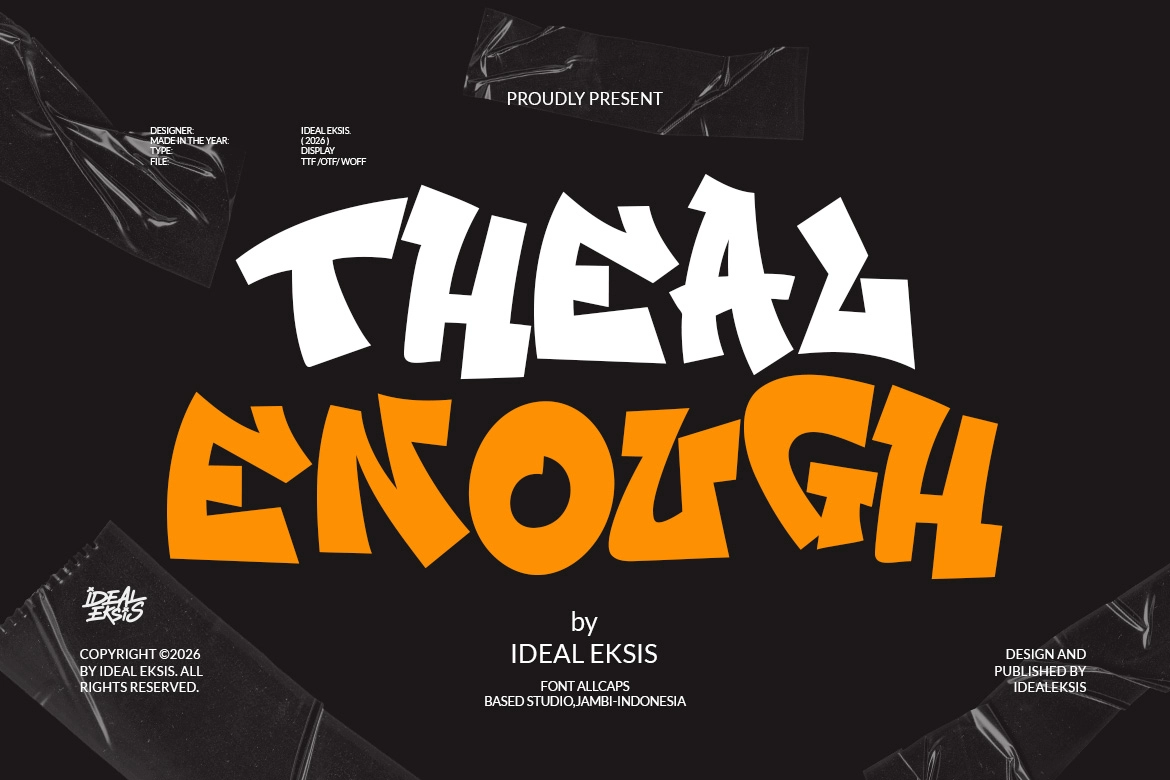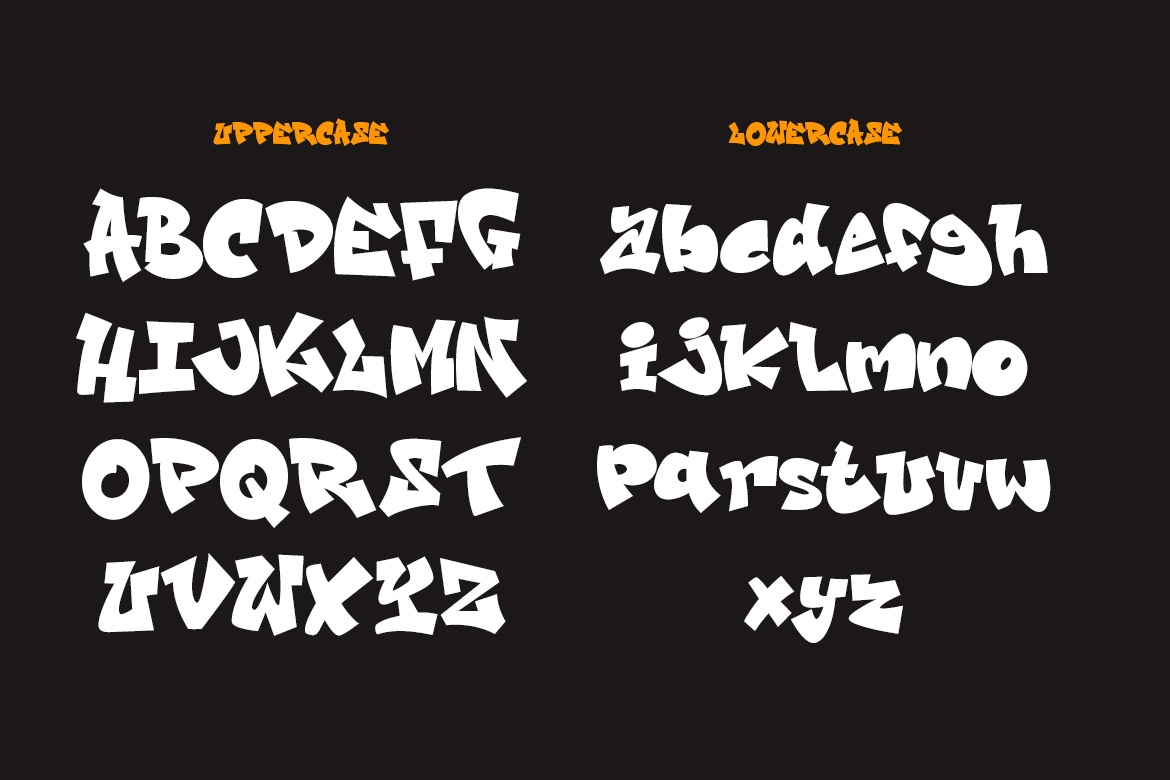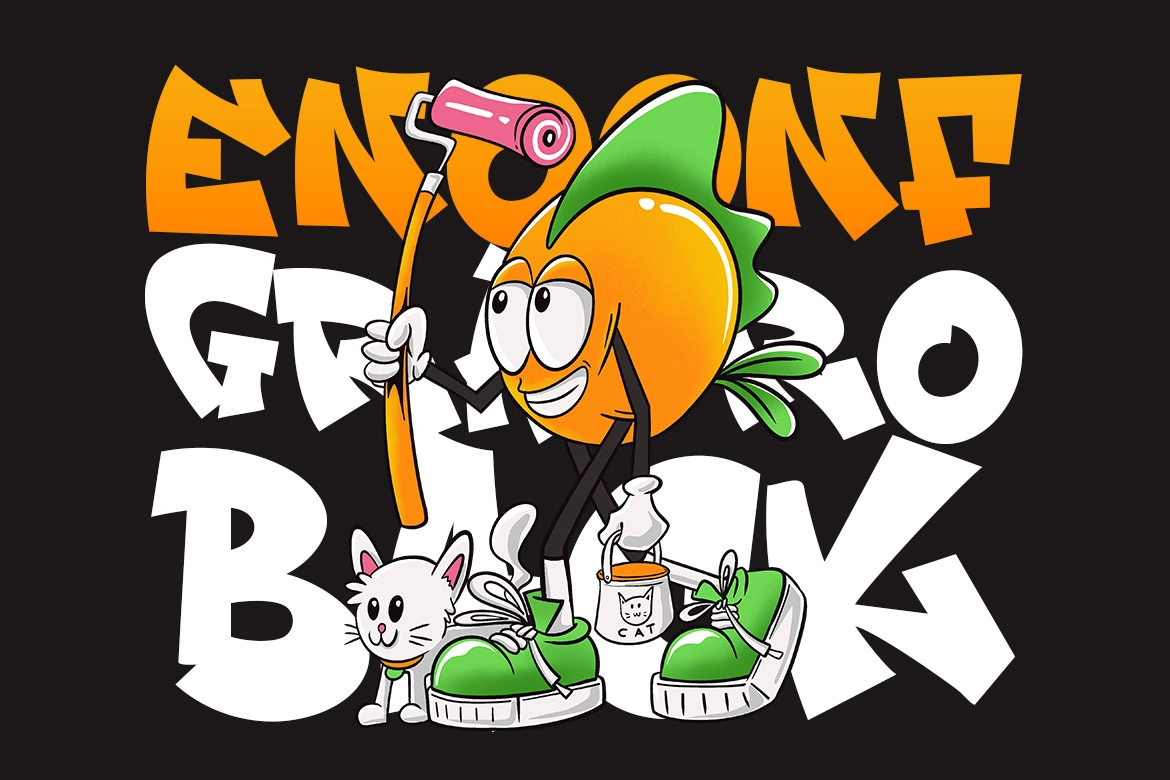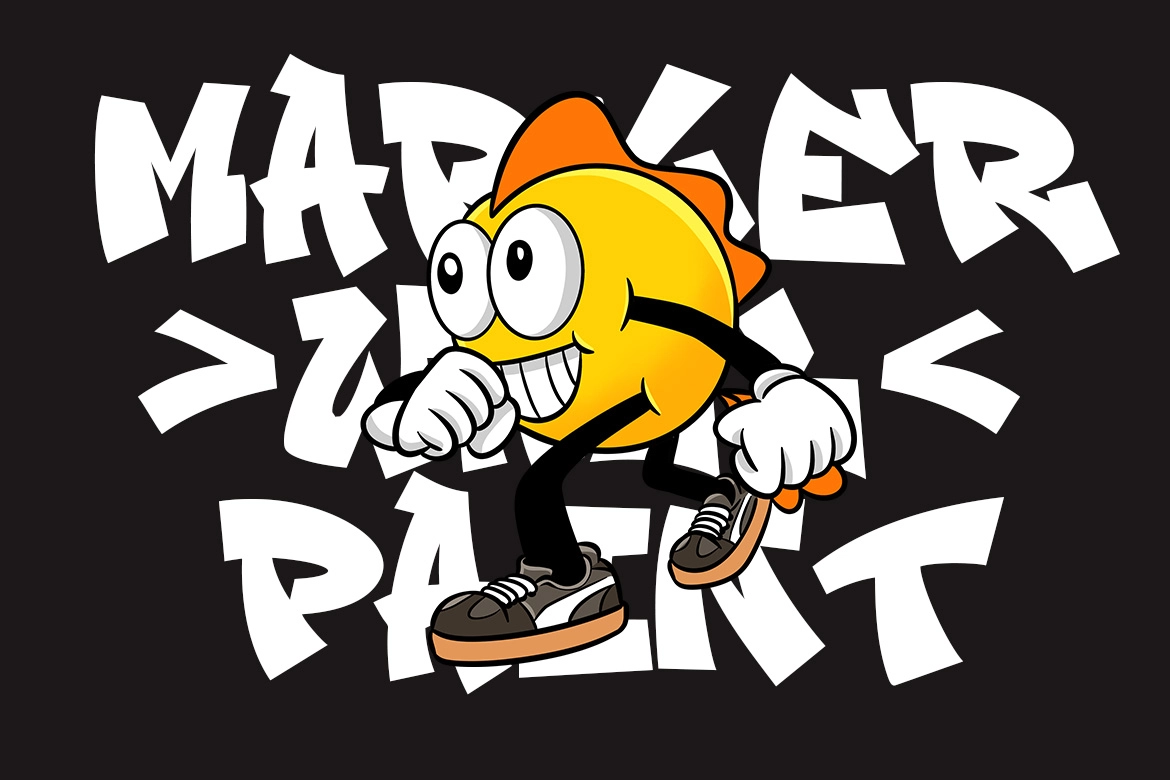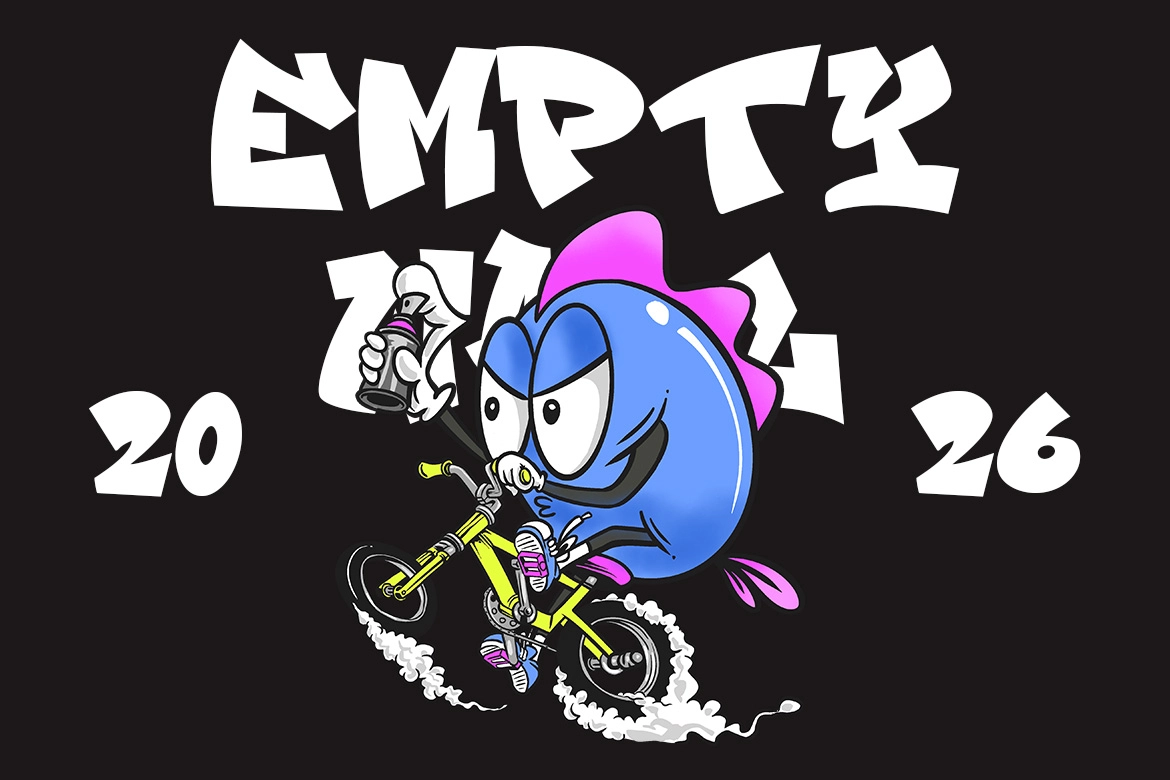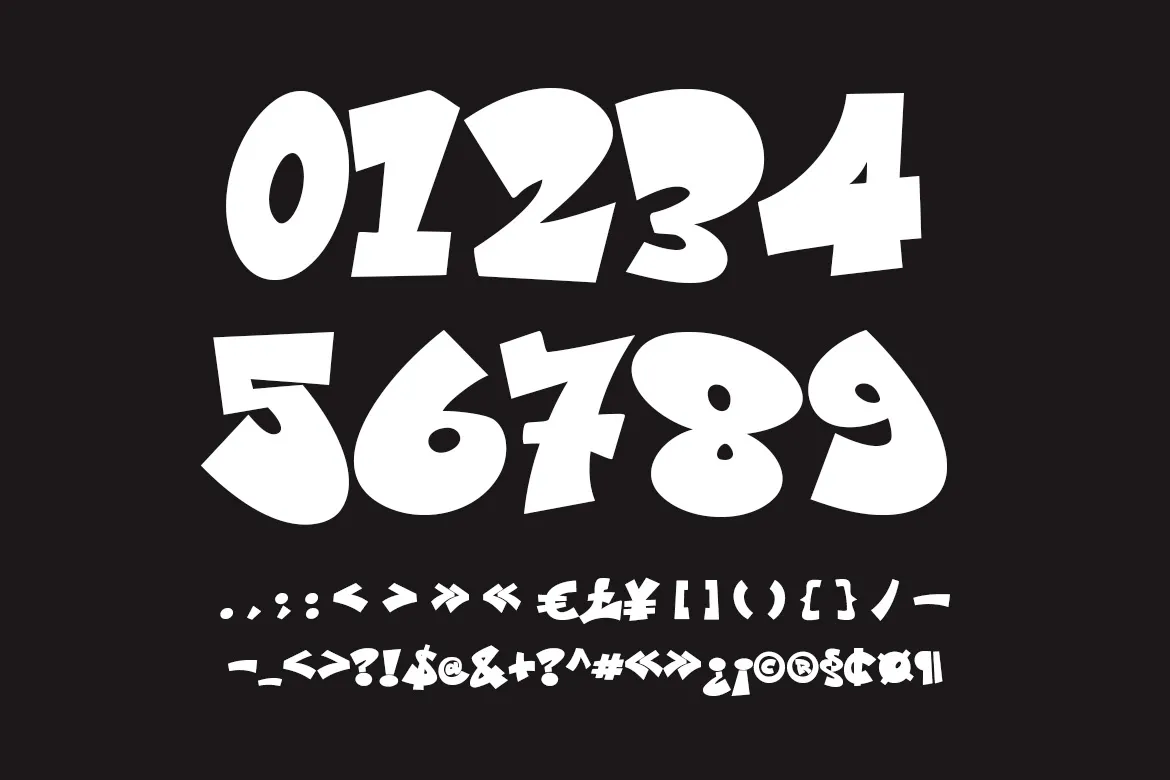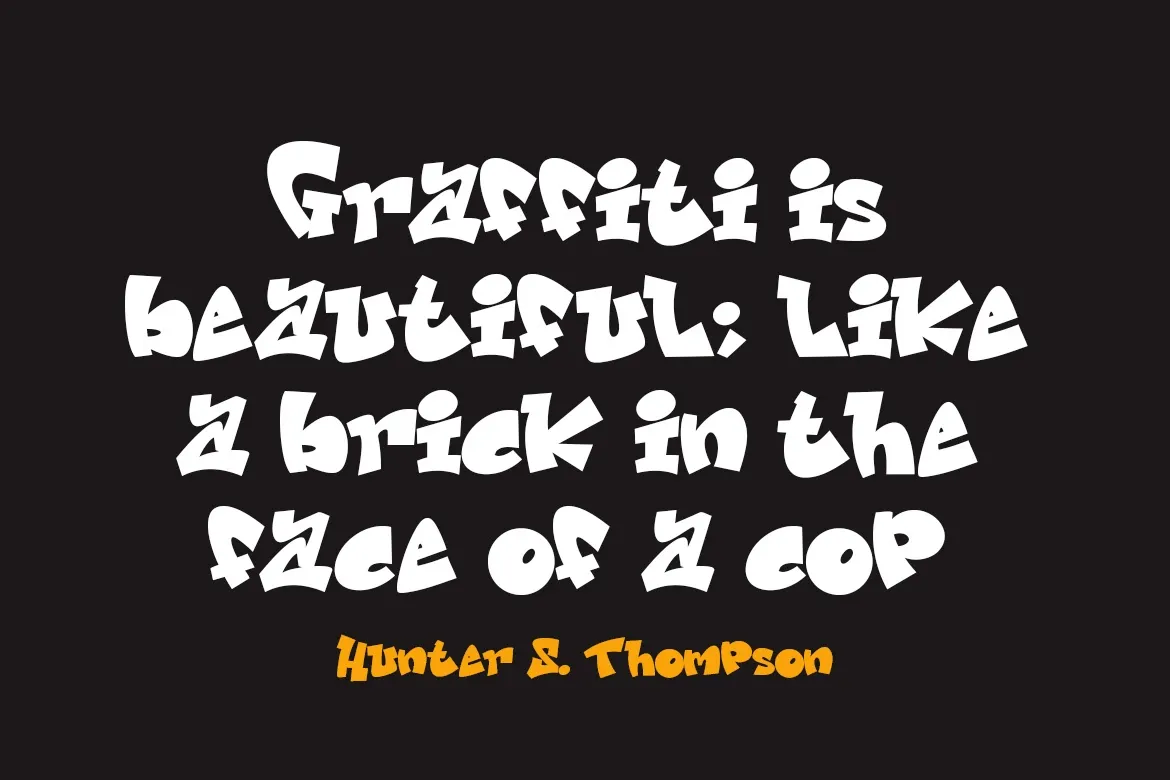
Theal Enough - Bold Graffiti Font
Theal Enough - Bold Graffiti Font delivers a punchy, street-inspired aesthetic with heavy, blocky letterforms and expressive irregular shapes. Its thick strokes and uneven edges create a raw, authentic graffiti feel that instantly adds attitude and energy to any design. Built for impact, this bold graffiti font stands out in large-scale compositions, making it perfect for posters, album covers, streetwear branding, and urban visuals.
With its dynamic structure and handcrafted look, Theal Enough - Bold Graffiti Font brings a sense of movement and rebellion to your typography. It captures the spirit of street art while remaining highly usable for modern digital and print projects. Whether you're designing edgy branding or bold social media graphics, this font gives your work a distinctive, urban voice.
- Uppercase and lowercase letters
- Numerals and Punctuation